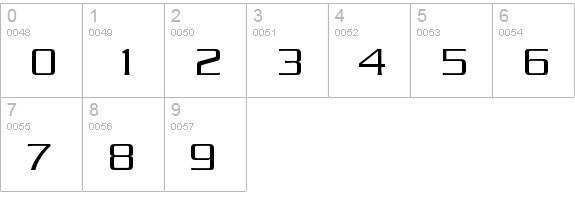
BoostLightSSK Font Details
BoostLightSSK is a modern and sleek font that exudes sophistication and elegance. Its clean lines and sharp edges make it perfect for a variety of design projects, from branding to editorial layouts. This font strikes the perfect balance between professionalism and creativity, making it a versatile choice for any designer. What sets BoostLightSSK apart is not only its aesthetic appeal, but also its versatility. Whether you are creating a sleek corporate logo or a stylish invitation, this font will elevate your design to the next level. Its light weight gives it a delicate and airy feel, adding a touch of refinement to any project. The best part? BoostLightSSK is completely free to download at FontsMarket.com. So go ahead and add this elegant font to your collection today and take your designs to new heights.